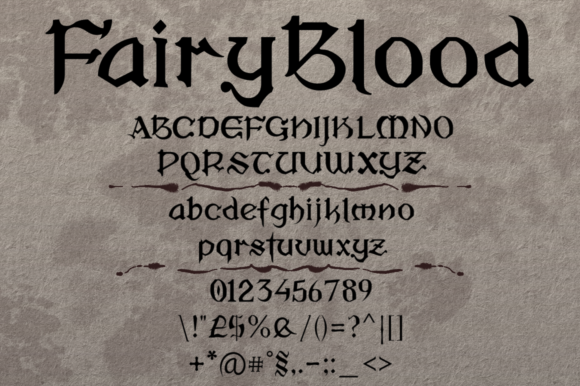
FairyBlood Font: Unleashing the Dark and Ancient Mood
In the realm of typography, fonts play a crucial role in evoking emotions and setting the tone for various creative projects. For designers and crafters seeking to add a touch of mystique and eeriness to their work, the FairyBlood font is an excellent choice. This unique font brings a dark and ancient mood with it, making it perfect for inscriptions, videogames, titles, and more.
The Origins of FairyBlood Font
FairyBlood font is a carefully crafted typeface that draws inspiration from ancient texts and mysterious inscriptions. Its creators aimed to evoke a sense of mysticism and otherworldliness, making it an ideal choice for projects that require a distinctive and captivating aesthetic. The font’s design is characterized by intricate details, sharp edges, and an overall sense of eeriness, which sets it apart from more conventional typefaces.
Key Features of FairyBlood Font
- Dark and Ancient Mood: The FairyBlood font exudes a sense of mystery and foreboding, making it perfect for projects that require a dramatic and captivating aesthetic.
- Intricate Details: The font features intricate details and ornate embellishments, which add to its mystical and ancient feel.
- Versatility: FairyBlood font can be used for a wide range of creative projects, including inscriptions, videogames, titles, and more.
- High-Quality Design: The font is carefully crafted with high-quality design elements, ensuring that it looks great in various sizes and resolutions.
Use Cases for FairyBlood Font
The FairyBlood font is an excellent choice for various creative projects, including:
- Inscriptions: Add a touch of mysticism and ancient wisdom to your inscriptions with the FairyBlood font.
- Video Games: Create a captivating and eerie atmosphere in your videogames with the FairyBlood font.
- Titles and Headings: Use the FairyBlood font to create eye-catching titles and headings for your blog posts, articles, and other written content.
- Logos and Branding: The FairyBlood font can be used to create unique and memorable logos and branding elements for businesses and organizations.
Tips for Using FairyBlood Font
To get the most out of the FairyBlood font, consider the following tips:
- Use it Sparingly: Due to its bold and attention-grabbing nature, it’s best to use the FairyBlood font sparingly to avoid overwhelming your audience.
- Pair it with Other Fonts: Combine the FairyBlood font with other fonts to create a unique and visually appealing typography scheme.
- Experiment with Colors: Try out different colors and textures to enhance the mystical and ancient feel of the FairyBlood font.
In conclusion, the FairyBlood font is a unique and captivating typeface that brings a dark and ancient mood to various creative projects. Its intricate details, sharp edges, and overall sense of eeriness make it perfect for inscriptions, videogames, titles, and more. By understanding the key features, use cases, and tips for using the FairyBlood font, designers and crafters can unlock its full potential and create stunning and memorable works.